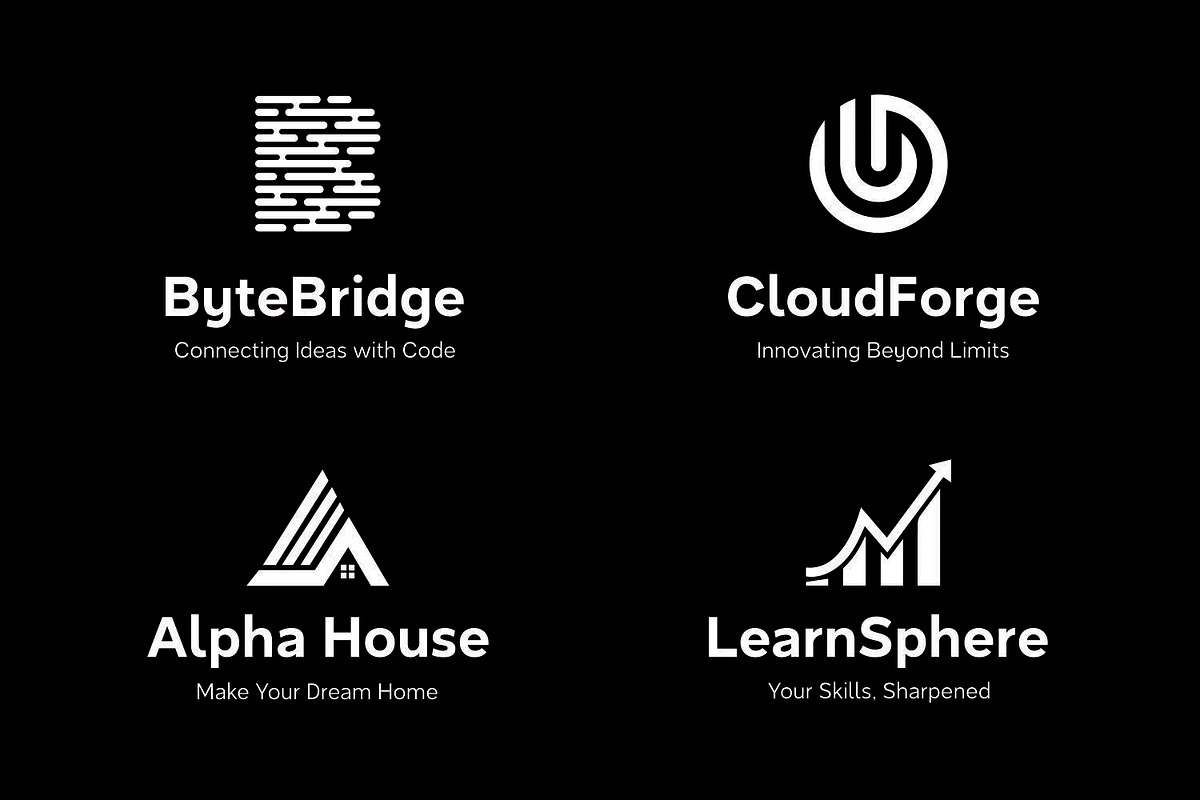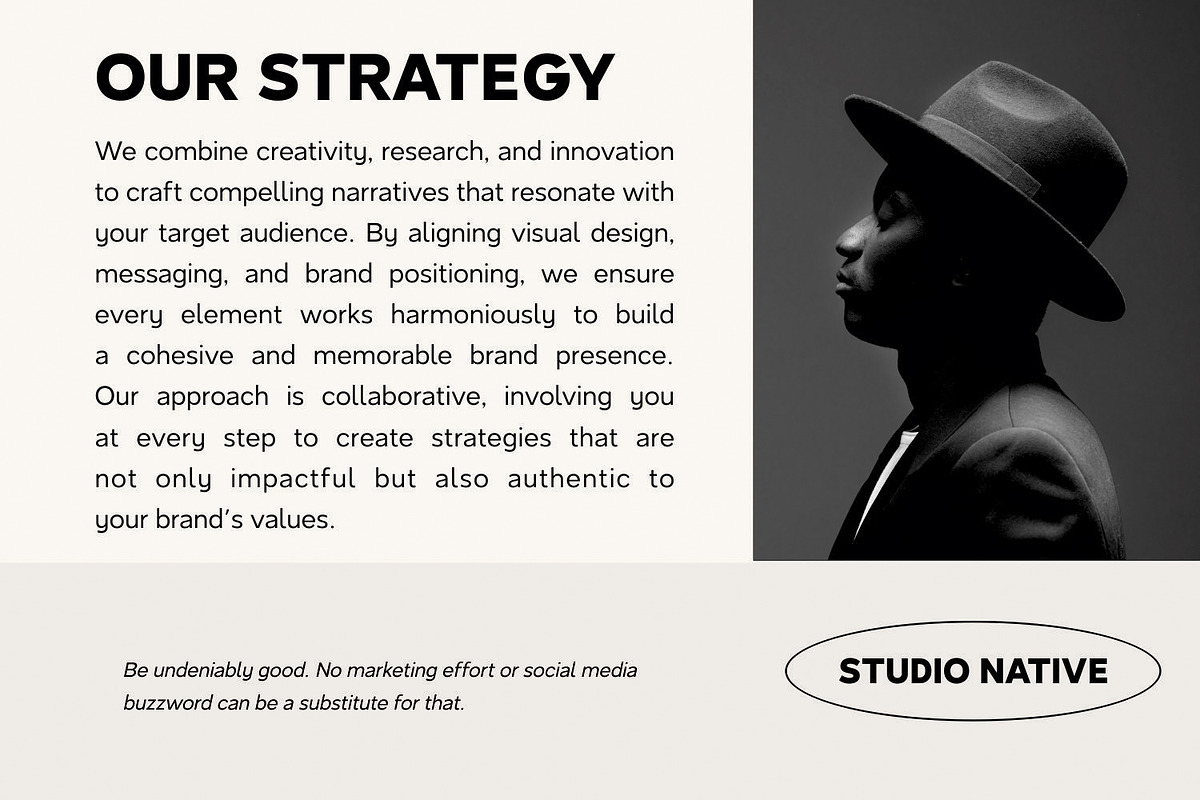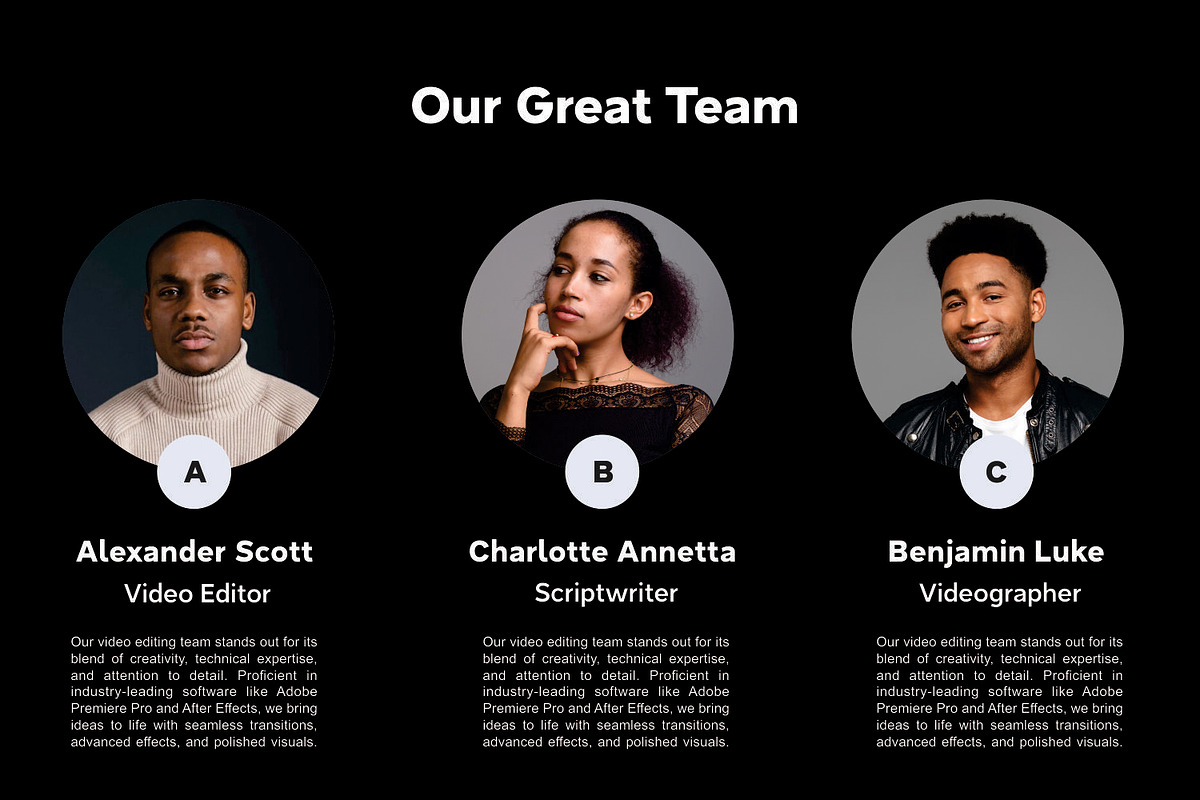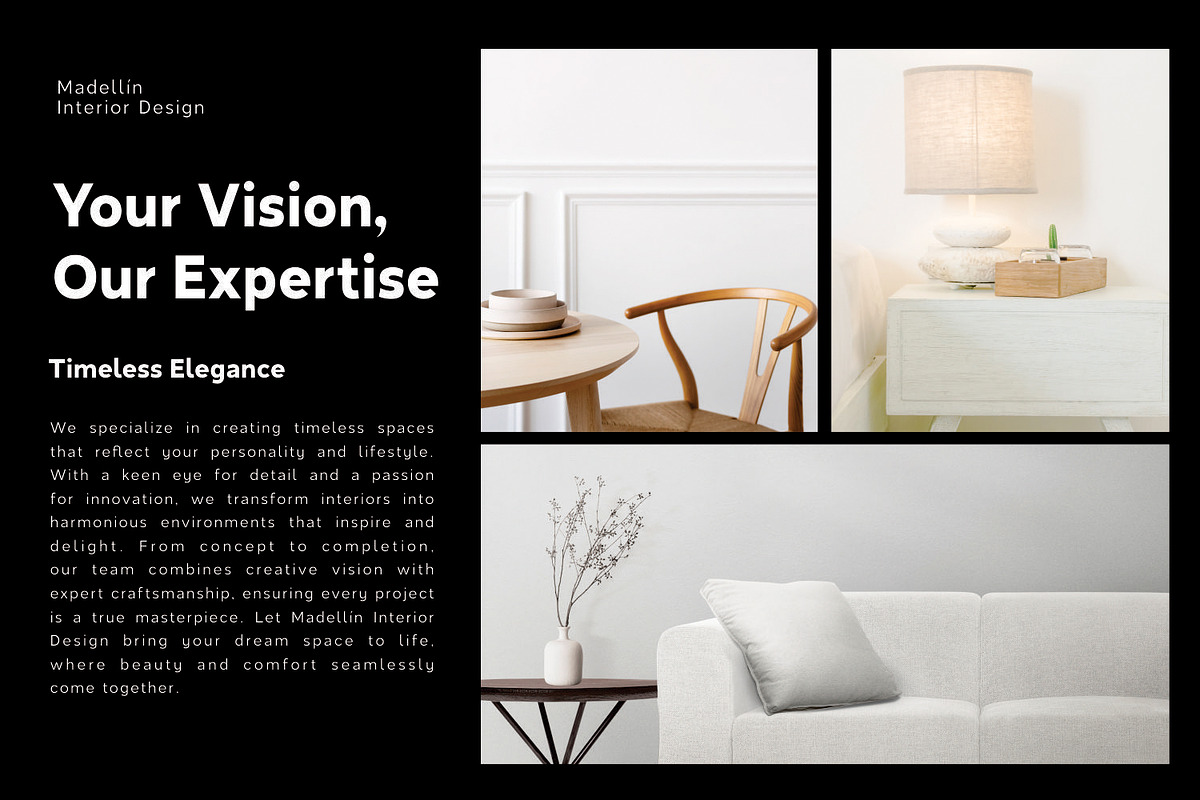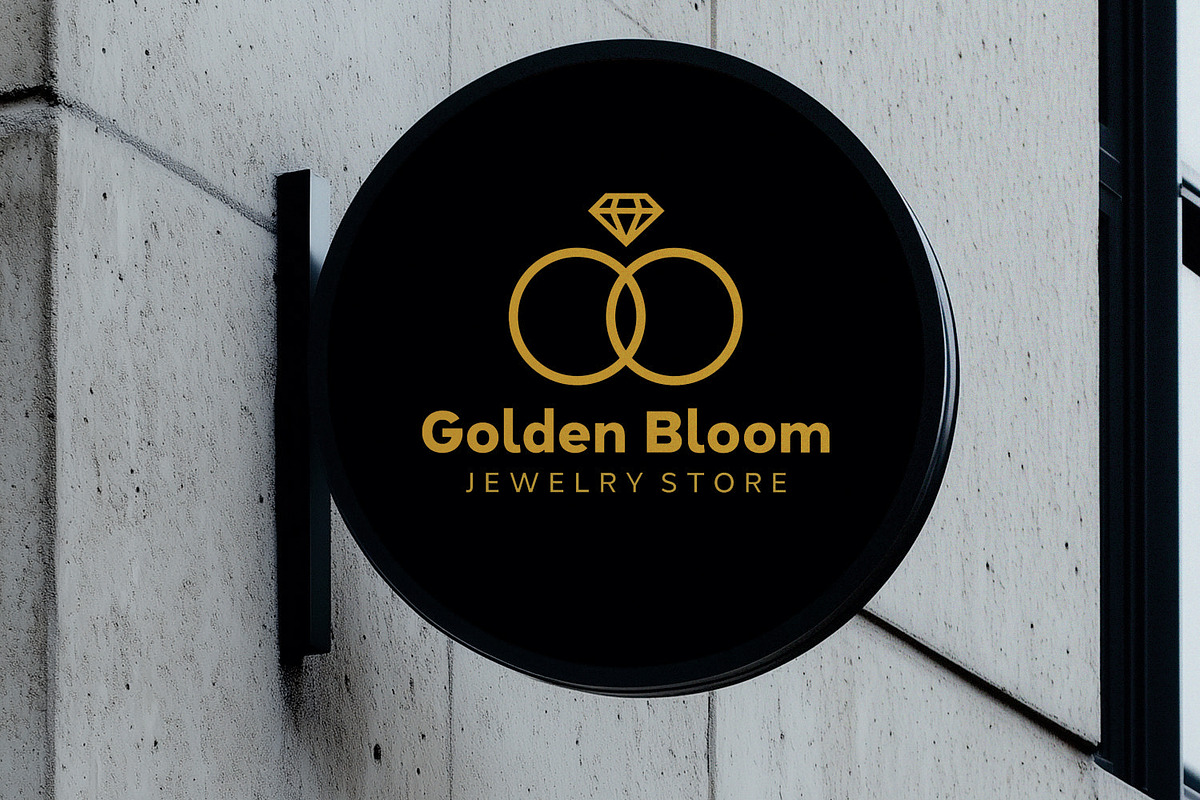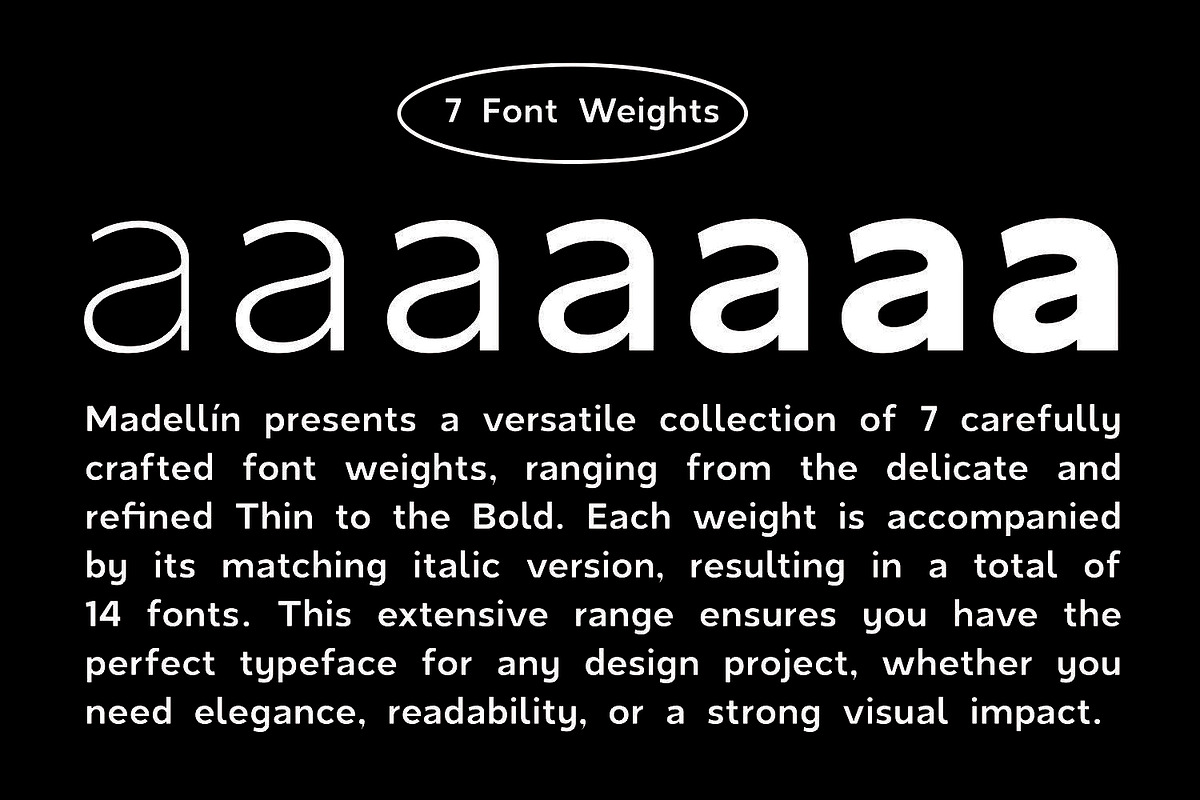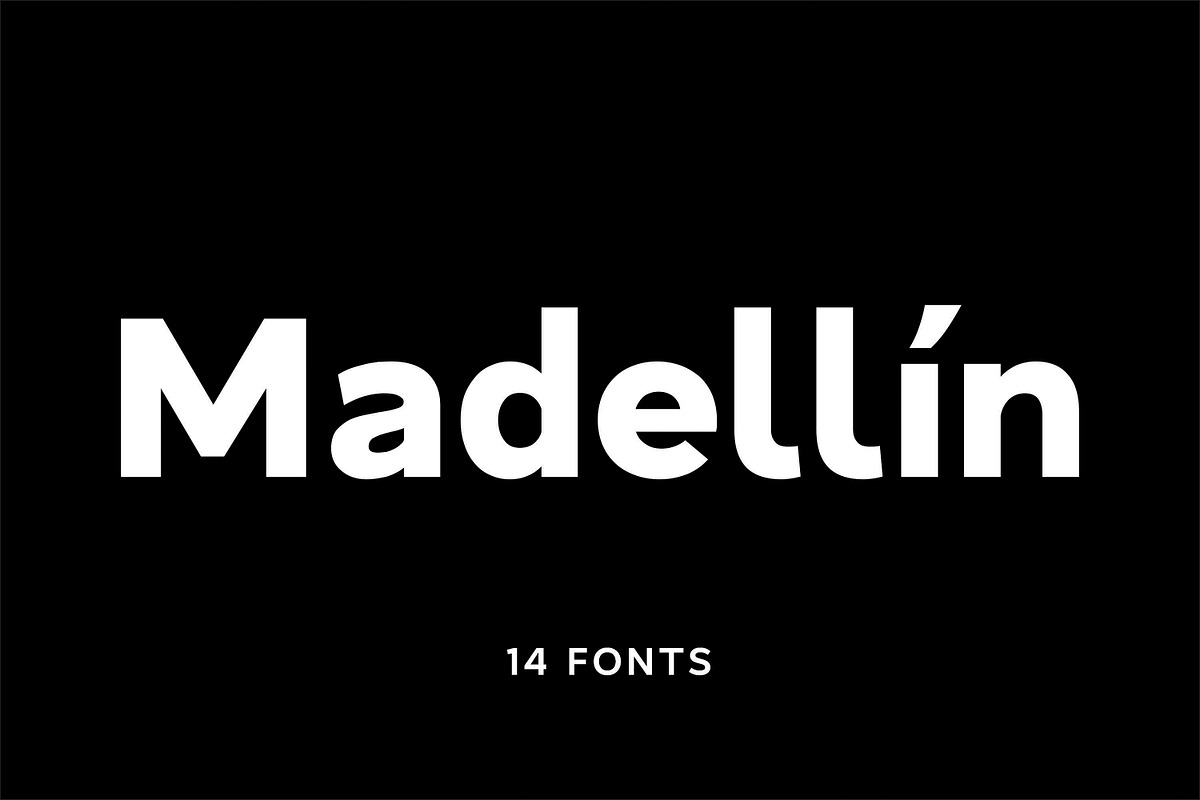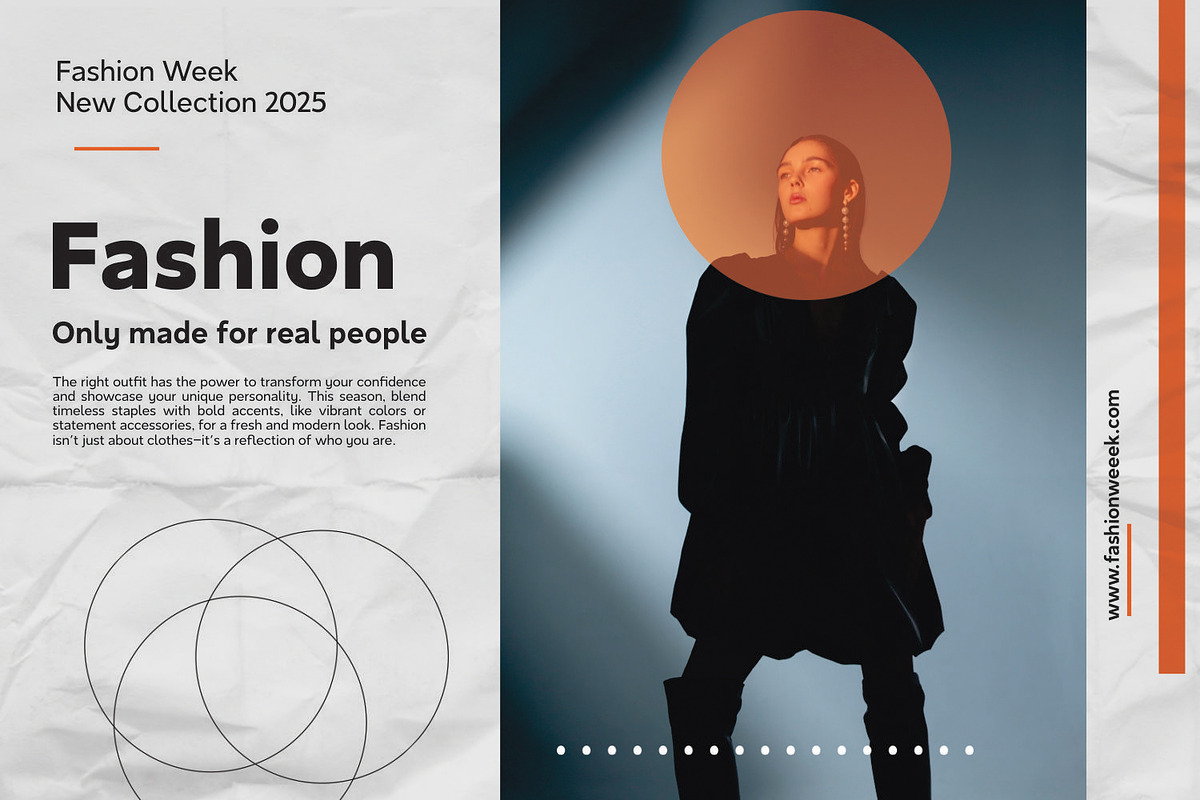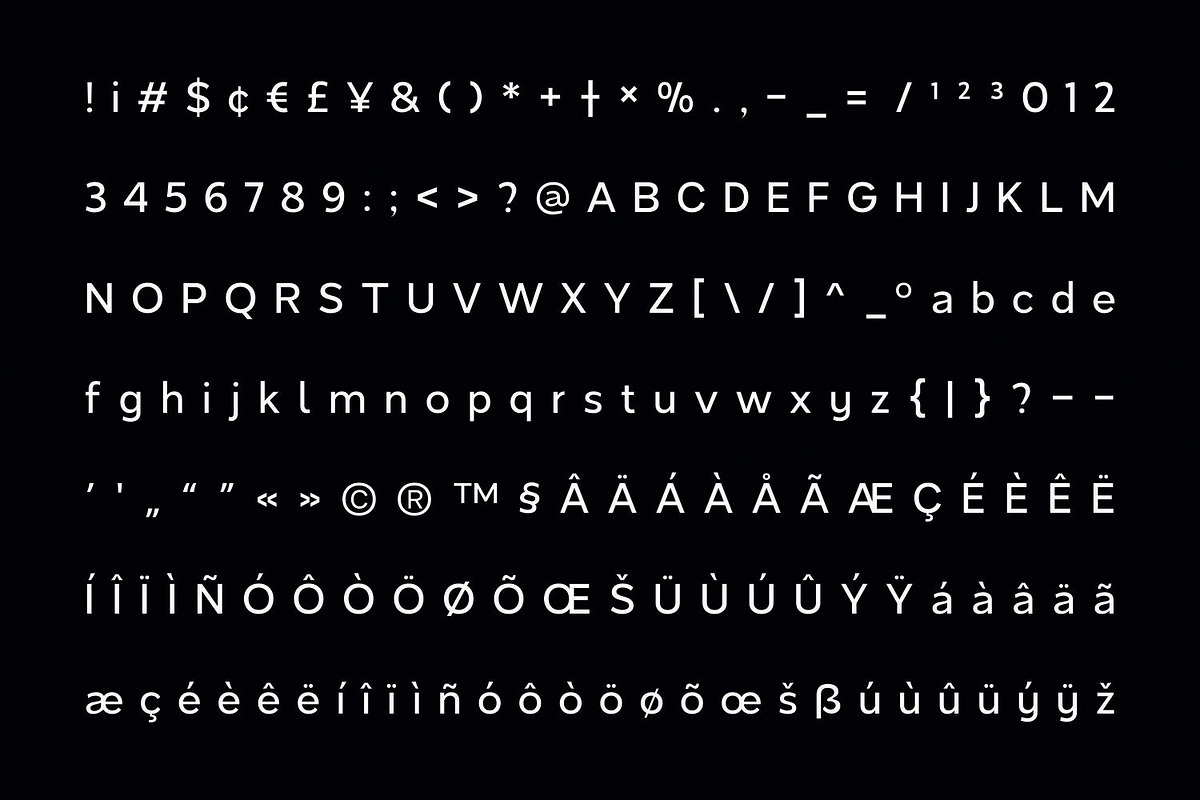
Madellin - Logo Font
Madellin is a fresh, geometric sans-serif font family that brings a modern, clean aesthetic to any design. With its sleek, sharp edges and bold letterforms, it captures the essence of neo-grotesk fonts from the 20th century. The font has been carefully crafted to have a large x-height, giving it a strong presence while maintaining readability. It’s a versatile font that works across a variety of design needs, from headlines to logos and everything in between.
The Madellin family comes with seven font weights, giving you plenty of flexibility to find the perfect look for your project. It also includes italic versions of each weight, adding even more versatility to your design toolkit. Whether you’re working on branding, posters, or web design, Madellin adapts to all your creative needs with ease.
Madellin’s minimalist and professional style makes it an ideal choice for projects like branding, advertising, packaging, signage, and much more. Its geometric shapes and sharp lines create a bold, modern vibe that works well in both print and digital media. From newspapers to fashion lookbooks, this font ensures your message stands out with clarity and style.